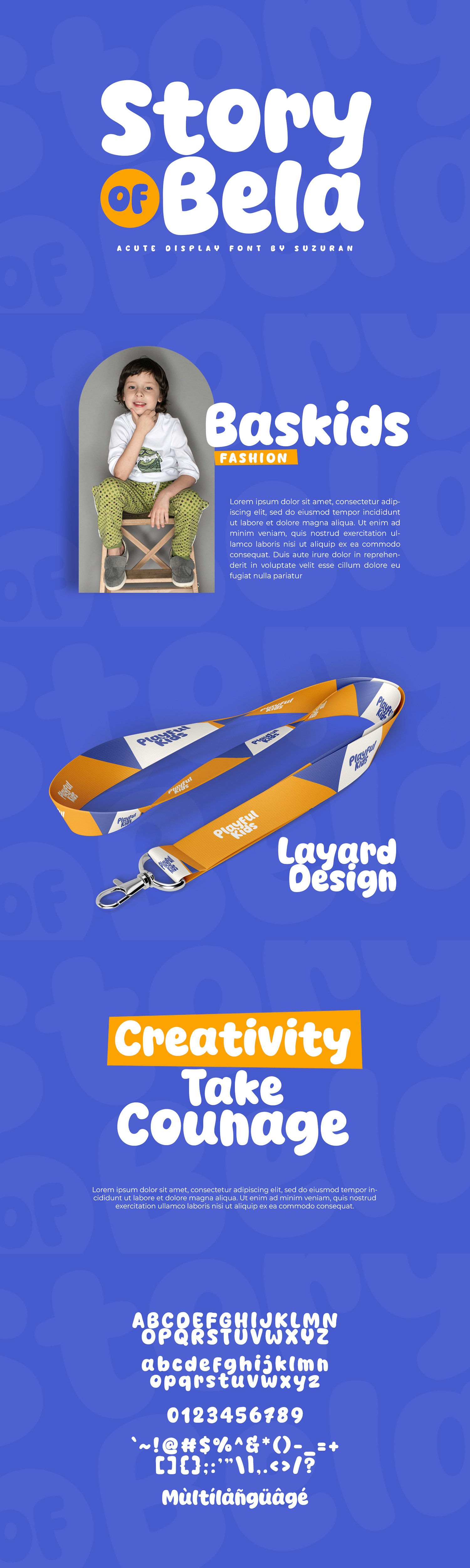
Story of Bela Font
Story of Bela is a fun and bold display font perfect for posters, logos, magazines, book covers, banners, and many more! Get this quirky display font, and use it to create lovely designs!